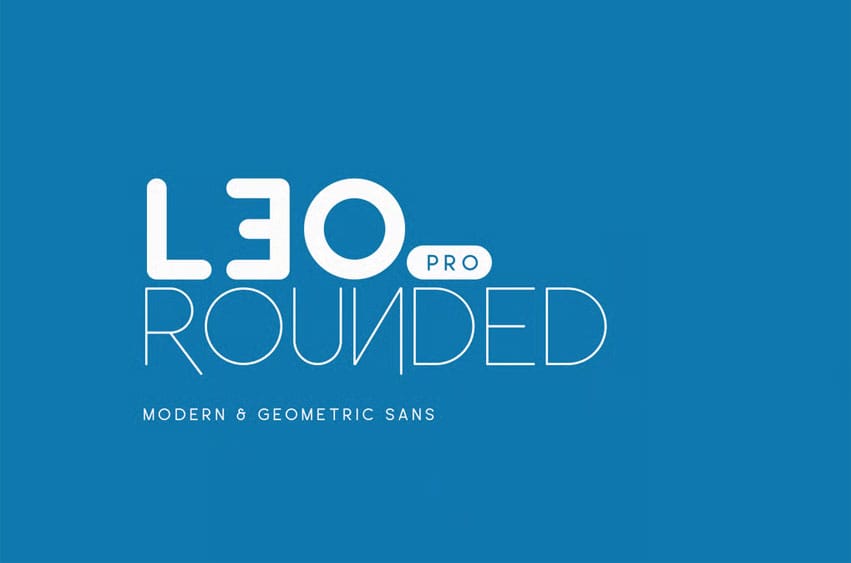
Leo Rounded Font Pro is the third version of the Leo sans family, a modern sans serif with a geometric touch and rounded corners. It comes in 10 weights, clean and modern caps, thereby creating more variability.
Designed with powerful opentype features in mind. Each weight includes extended language support, currency, and more. Perfectly suited for graphic design and any display use. It could easily work for web, signage, corporate as well as for editorial design.
Weights:Â Thin, UltraLight, Light, Regular, Medium, SemiBold, Bold, ExtraBold, Black, Heavy